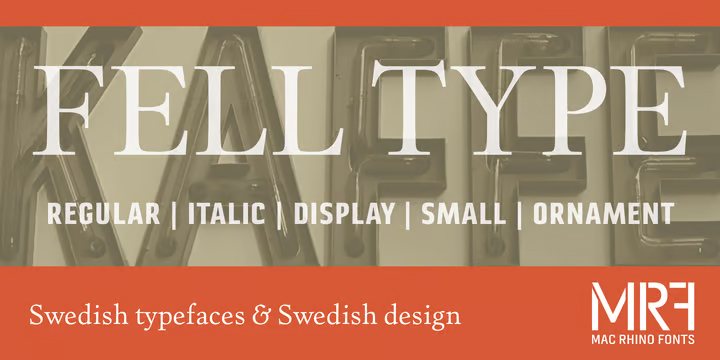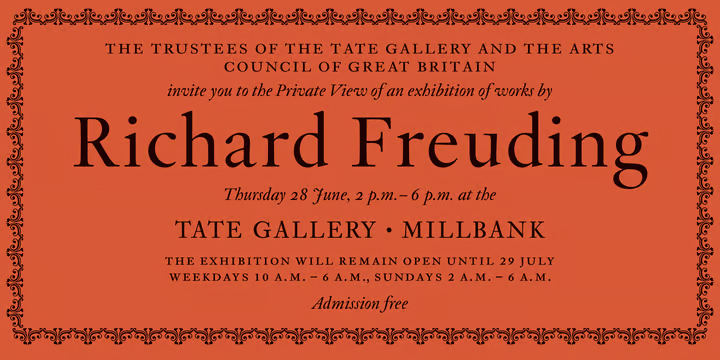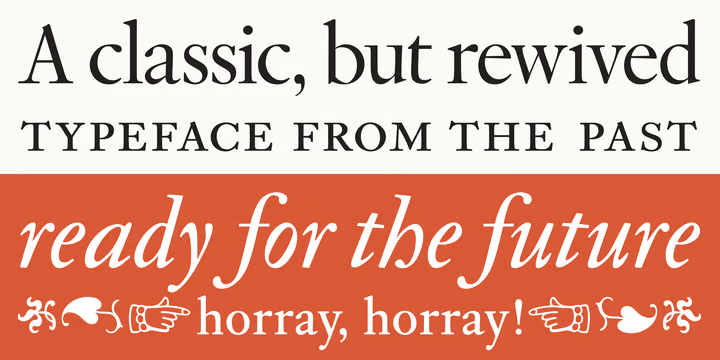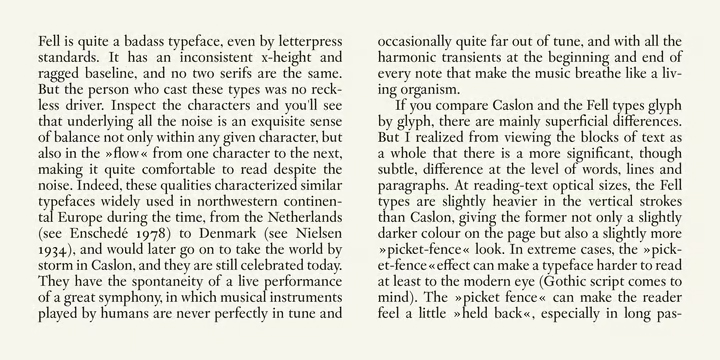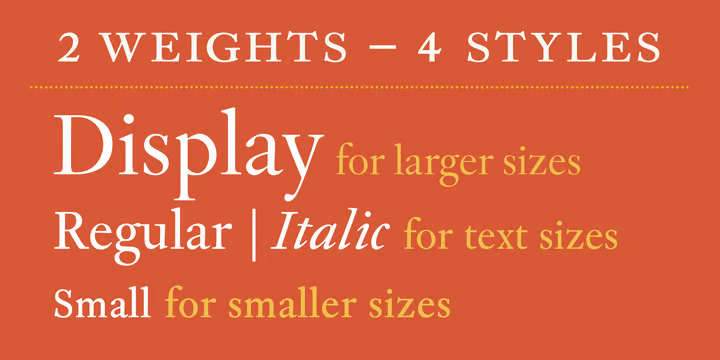
Fell Type Premium Font Family
A new take on the classic typeface used at Oxford University Press. Carefully crafted from original sources and updated for the modern times. Size specific weights and meant to act as a work horse for longer texts. A joint venture between Stefan Hattenbach and Johan Ström.